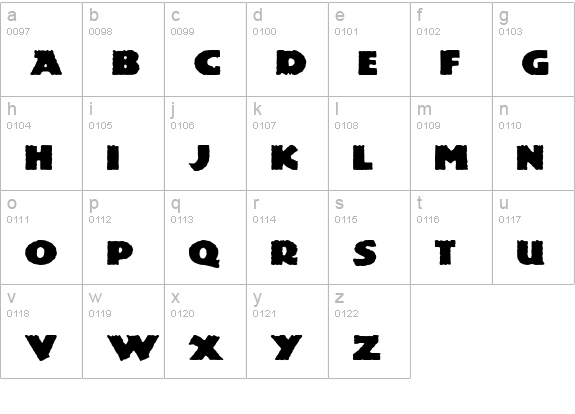
DinosauriaExtended Normal Font Details
DinosauriaExtended Normal is the standard, neutral variant in the DinosauriaExtended typeface family \xE2\x80\x94 well suited to general body text, paragraphs, and standard typographic work.
DinosauriaExtended Normal font is a bold and dynamic typeface that is sure to make a statement in any design project. With its sharp angles and strong lines, this font exudes power and strength. Perfect for headlines, posters, and branding materials, DinosauriaExtended Normal font is a versatile option for your typography needs. The best part? DinosauriaExtended Normal font is available for free download at FontsMarket.com. So go ahead and add this eye-catching font to your collection without breaking the bank. Download now and unleash the prehistoric power of DinosauriaExtended Normal font in your designs!